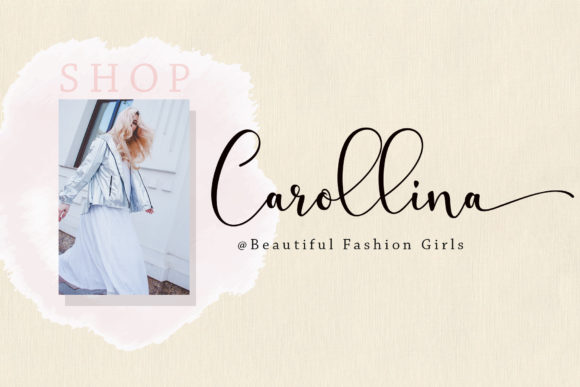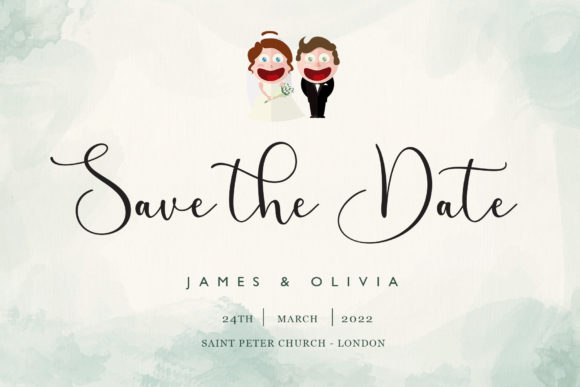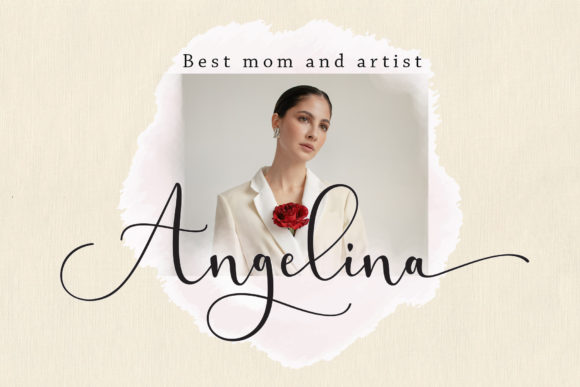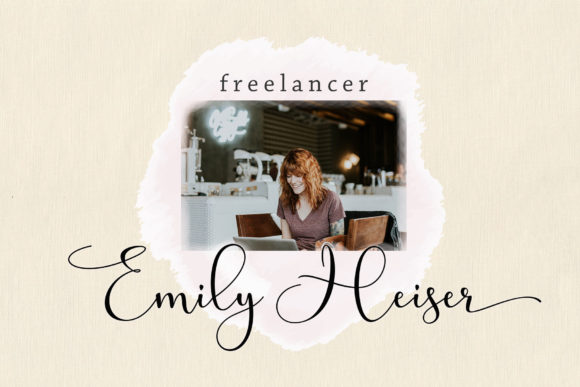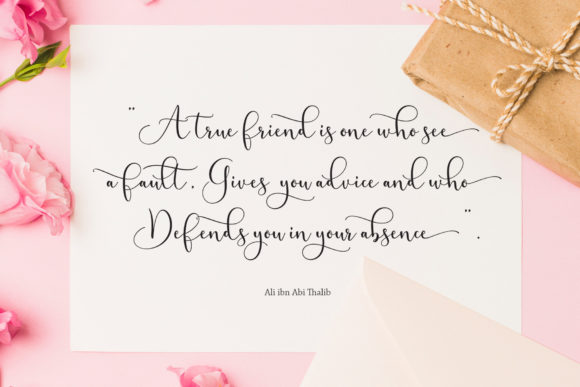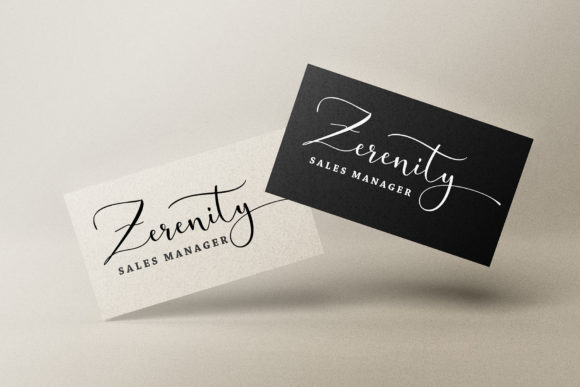
The Beasley Font: A Luxurious Addition to Your Design Arsenal
Ah, the elusive perfect font. You know, that one treasure that makes your design project shine like a superstar ✨. I’ve been there, friends – stuck in a sea of typography options, desperately searching for that magic spark to elevate my work. And then, I stumbled upon the Beasley font. Let me tell you, it’s been a game-changer.
A Moment of Design Frustration
I recall working on a luxury branding project for a high-end jewelry client. The brief was clear: create a sophisticated, elegant look that screamed opulence. I scoured font libraries, but nothing seemed quite right. That was until I discovered Beasley. Its light, handwritten strokes and unique feel instantly resonated with my design vision. The result? A stunning visual identity that wowed my client and exceeded their expectations.
An Honest Review of Beasley Font
- ✨ Beautifully crafted light handwritten strokes
- ✅ Unique feel that adds a touch of sophistication
- 🎉 PUA encoded for easy access to glyphs and ligatures
- 💫 Perfect for luxury branding, packaging, and high-end designs
While Beasley is an exceptional font, there are a few minor considerations to keep in mind ⚠️:
- 🤔 Limited use in very small font sizes, as some details may get lost
- ⚠️ Not ideal for body text or extensive reading materials
The Story Behind Beasley Font
While the origins of Beasley font may be shrouded in mystery, it’s clear that its designer aimed to create a typography treasure that would add a touch of luxury to any design project. Whether inspired by classic calligraphy or modern digital art, Beasley is a true gem in the world of typography.
Q: What is PUA encoding, and how does it benefit font users?
PUA (Private Use Area) encoding allows font creators to include additional glyphs and characters that aren’t part of the standard Unicode range. This means that Beasley font users can access a wide range of unique glyphs and ligatures, making it easier to create stunning designs.
Q: Is Beasley font suitable for body text or extensive reading materials?
While Beasley is an exceptional font, it’s primarily designed for headings, titles, and short text passages. For body text or extensive reading materials, you may want to consider a more traditional, readable font.